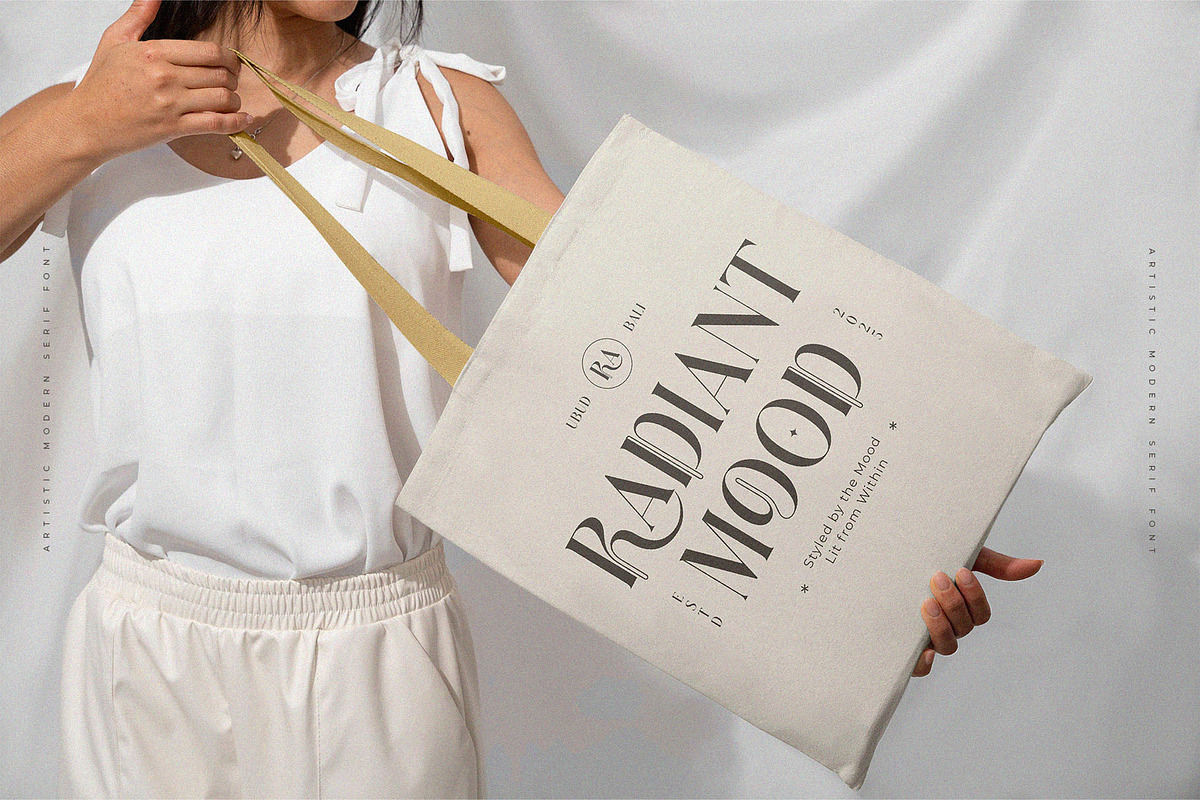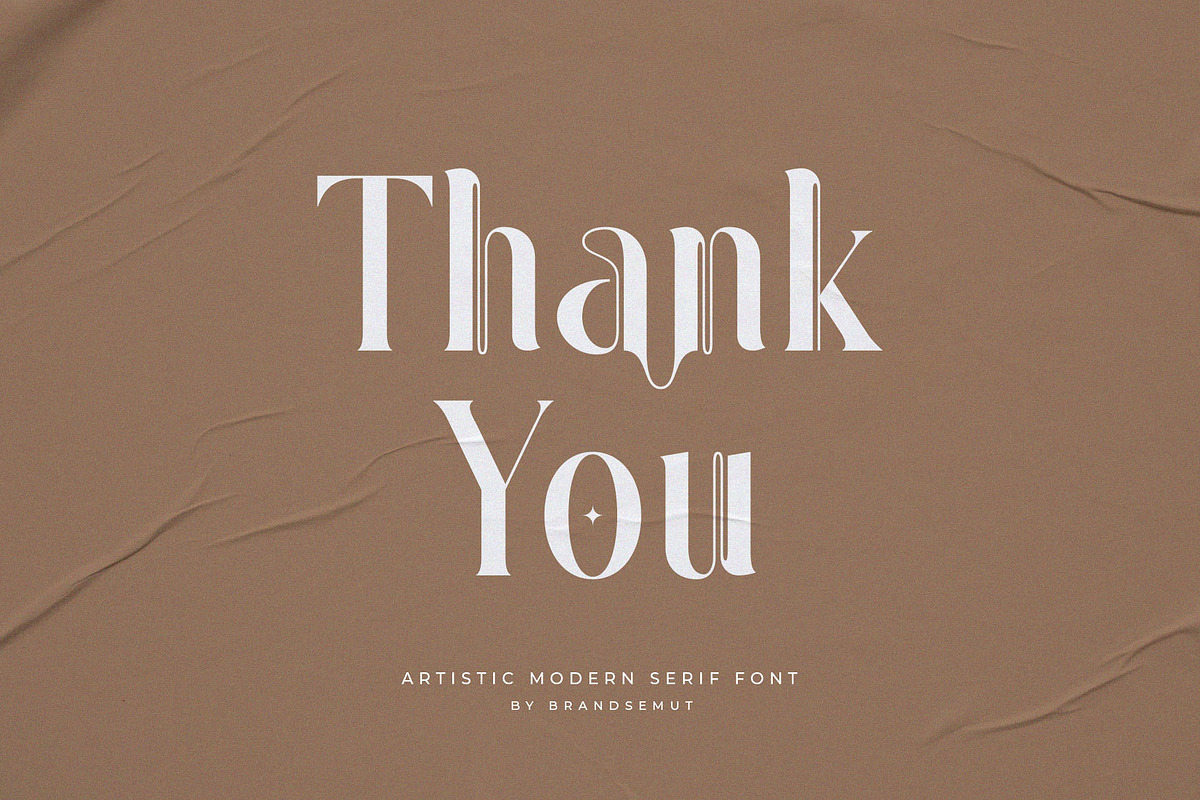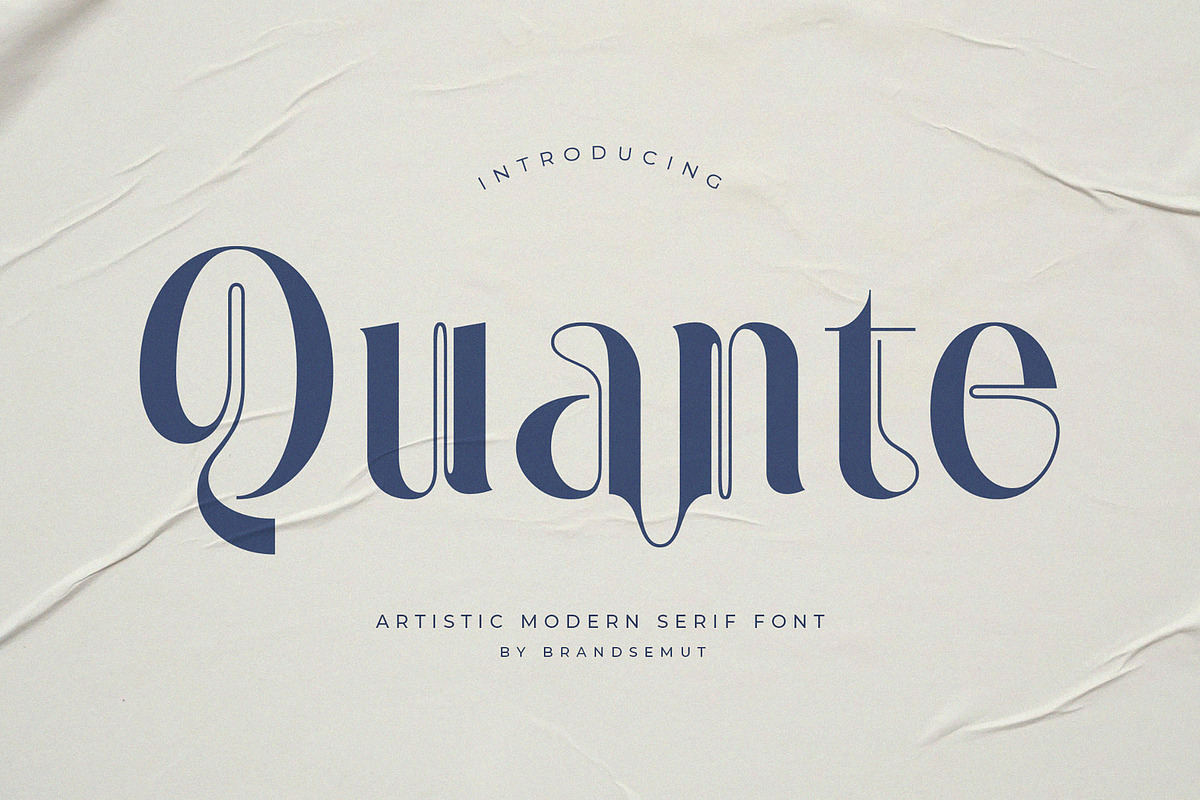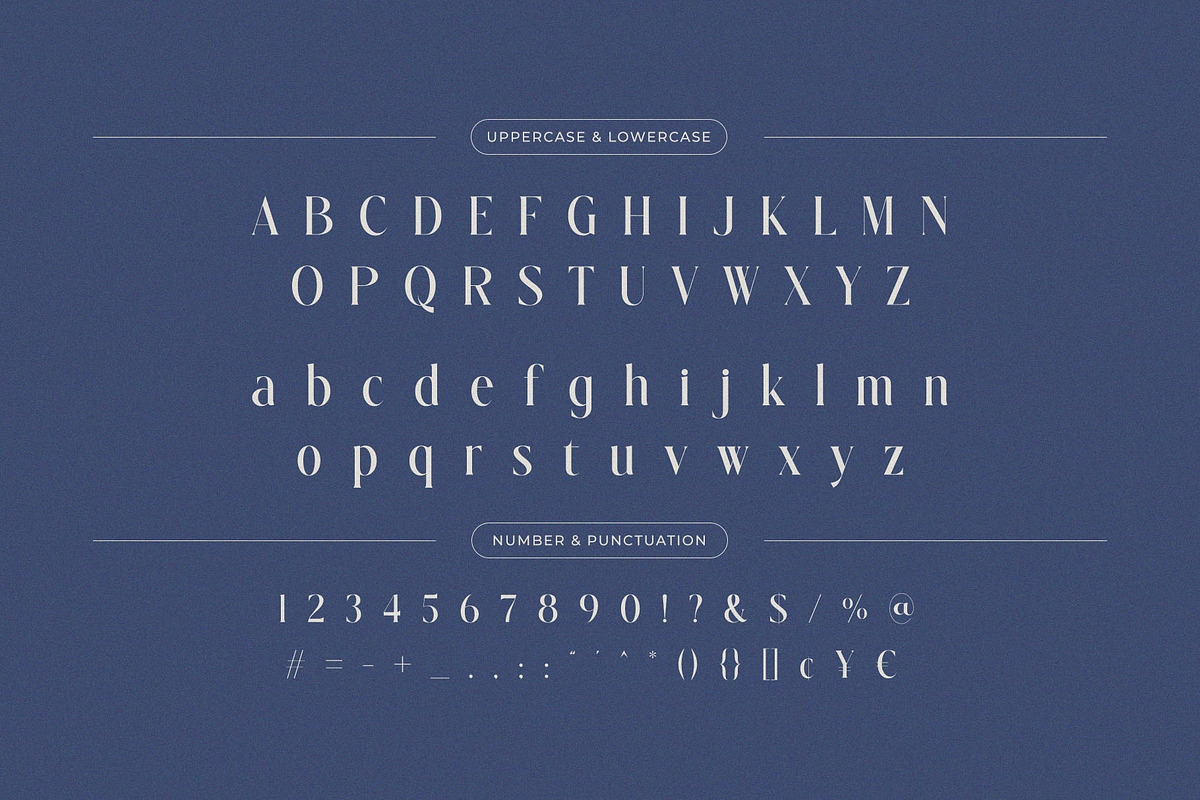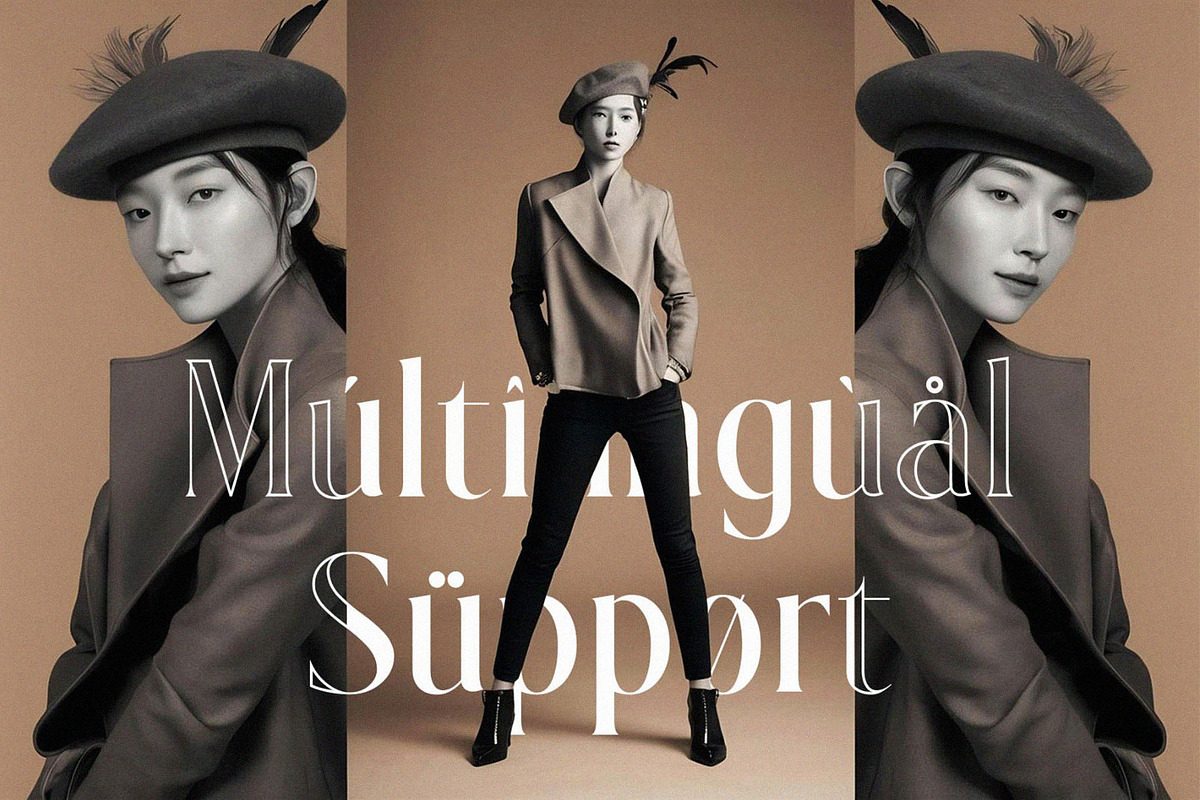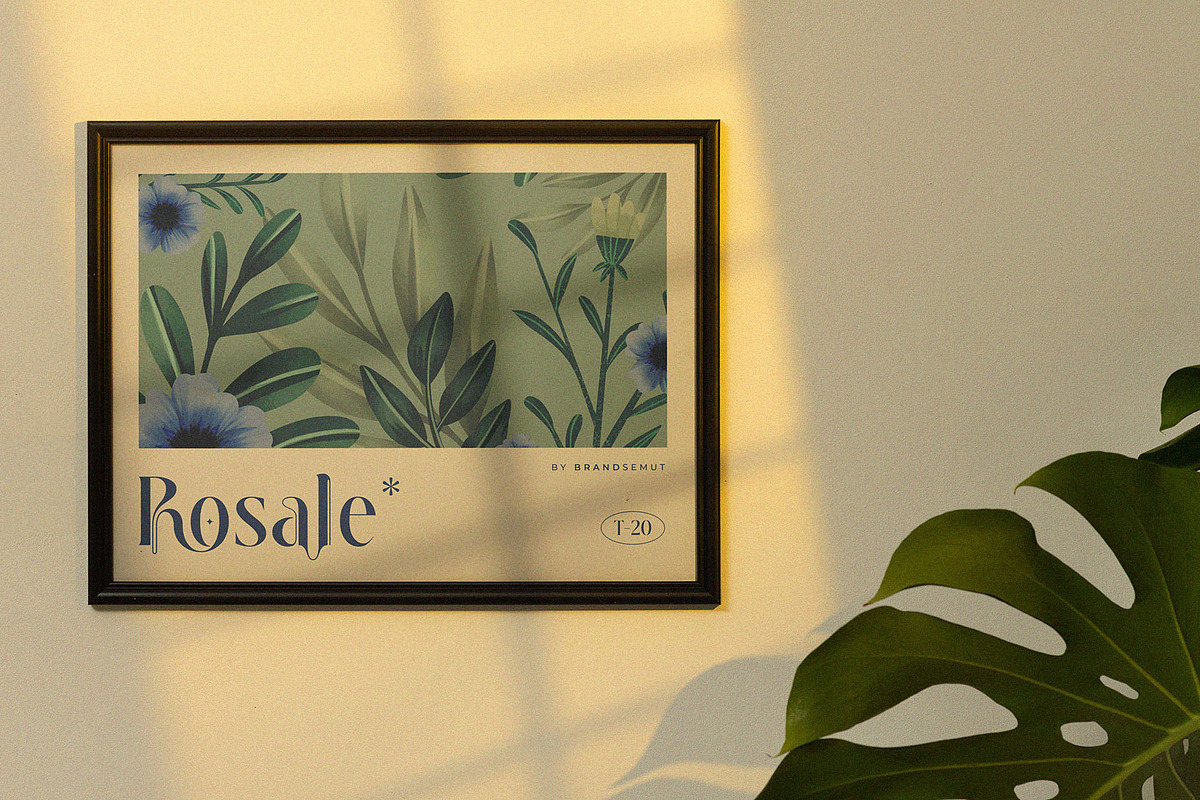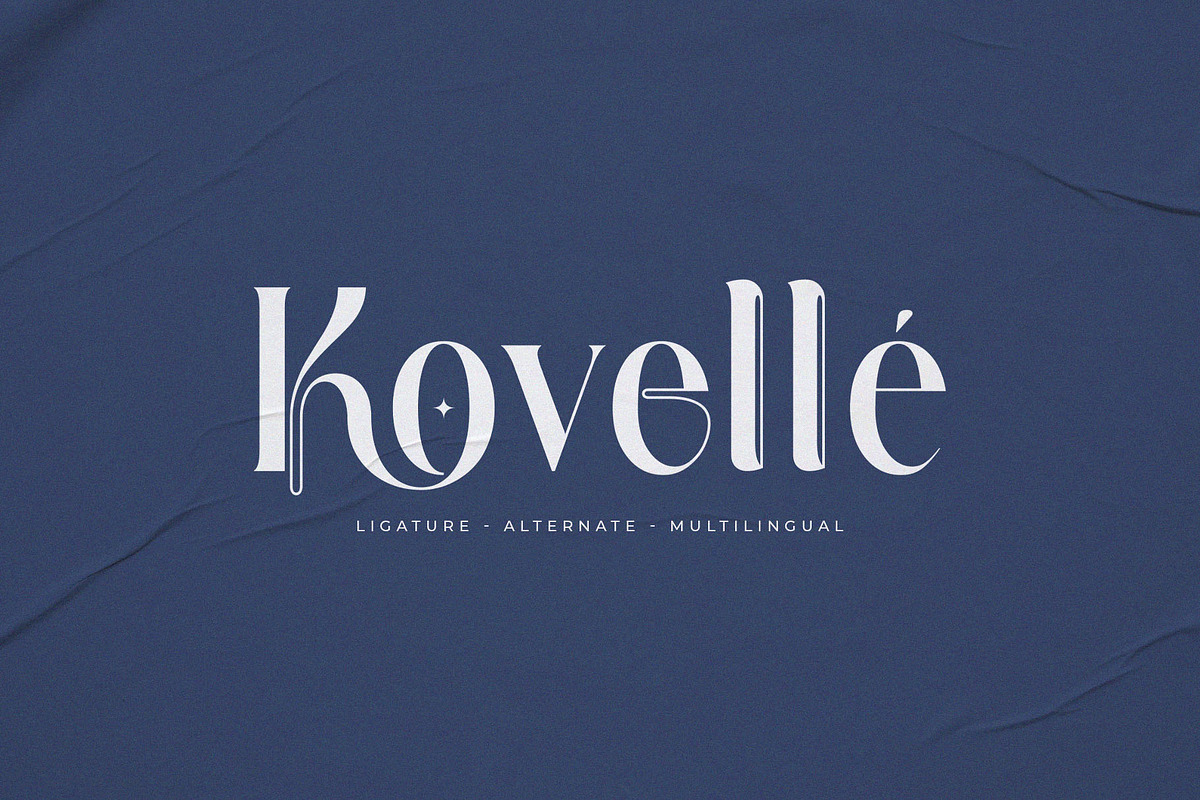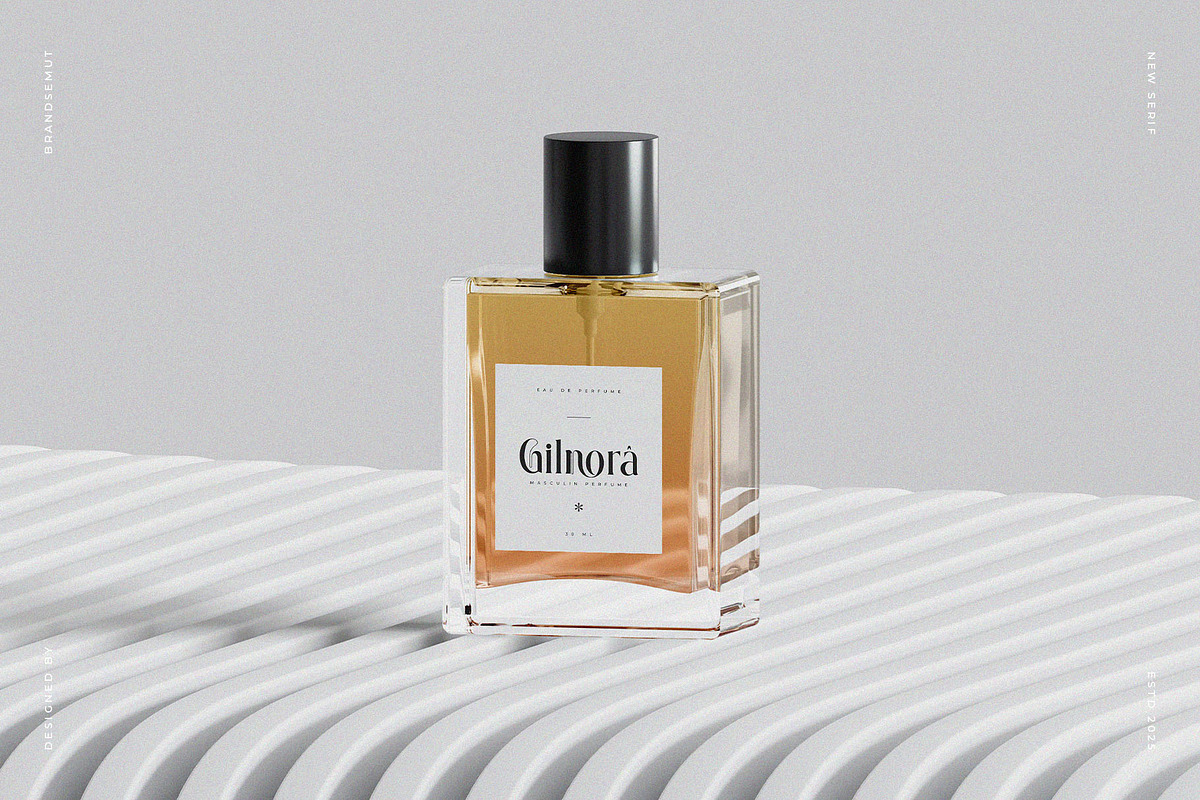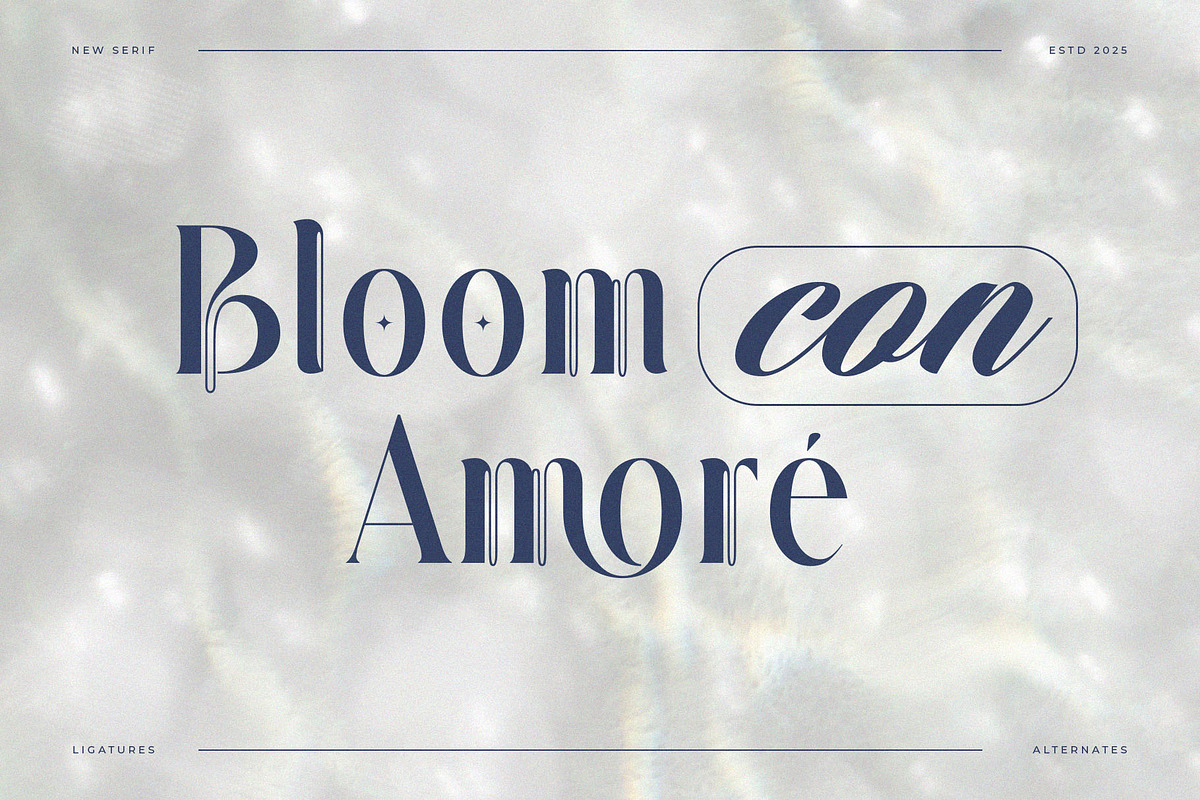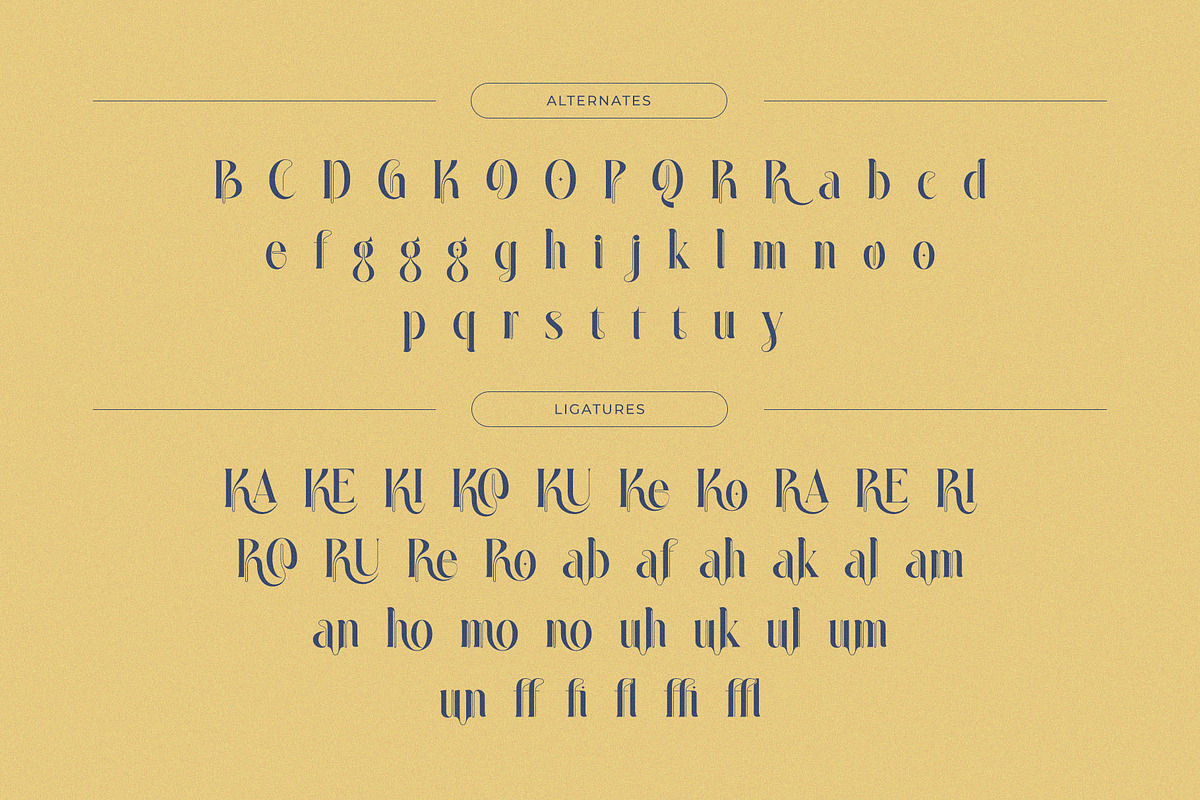
Quante – Artistic Display Serif
Quante – Artistic Modern Display Serif Typeface with Elegant Alternates & Unique Flair
Quante is a refined and artistic modern display serif font, crafted with exceptional attention to detail and an elegant balance between traditional serif characteristics and experimental contemporary shapes. Each letterform features subtle yet impactful artistic touches—such as stylish curves, clean cuts, and decorative terminals—making Quante an ideal typeface for projects that demand uniqueness with a premium visual identity.
This display serif typeface is suitable for both print and digital applications. With its combination of fluid elegance and structured modernism, Quante is a perfect choice for branding projects, editorial headlines, logo design, boutique packaging, magazine layouts, fashion lookbooks, social media graphics, and much more.
- Font Style: Modern Display Serif
- Character Set: Uppercase, Lowercase, Numerals, Punctuation
- Stylistic Alternates & Ligatures Included
- Supports Multilingual Characters (Latin-based)
- Ideal for: High-end branding, fashion editorials, luxury packaging, invitations, artistic headlines
Quante’s captivating appearance will elevate any design it graces, combining the timeless feel of serif fonts with modern aesthetics and distinct personality. Its versatility ensures that it performs beautifully across a wide range of sophisticated visual contexts.